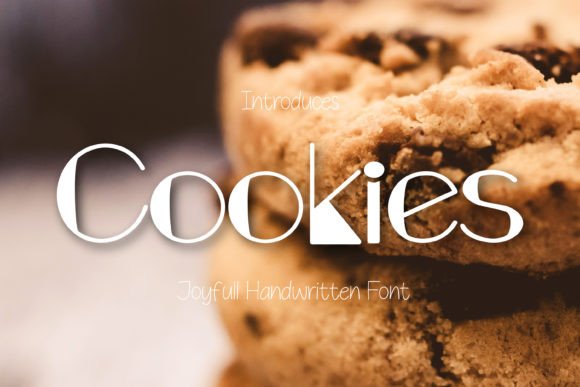
The Sweet Spot: Discovering the Charm of Cookies Font
I still remember the time I was working on a wedding invitation project, and my client asked for a font that was both elegant and quirky. I scoured the internet, tried out dozens of fonts, but nothing seemed to fit the bill. That was until I stumbled upon Cookies Font. Its unique blend of style and whimsy instantly won me over, and I’ve been hooked ever since. In this article, I’ll share my love for Cookies Font, its features, and how to make the most of it in your designs.
What I Love About Cookies Font
- ✨ Unique and stylish sans serif design that stands out from the crowd
- ✅ Elegant and sophisticated, yet playful and quirky
- 🔥 Highly versatile, suitable for a wide range of design projects, from invitations to logos
- 💻 Clean and readable, even at small font sizes
While Cookies Font is an excellent choice for many design projects, there are a few things to keep in mind:
- 🤔 Limited availability of extended language support
- ⚠️ May not be the best choice for body text, as it’s more suited for headlines and titles
- Explore the various OpenType features, such as stylistic alternates and glyphs, to add visual interest to your text
The Story Behind Cookies Font
Cookies Font was designed with the intention of creating a unique and stylish sans serif font that would stand out in a crowded design landscape. Inspired by the elegance of classic fonts and the playfulness of modern design, Cookies Font is the perfect blend of sophistication and whimsy.
Q: What type of projects is Cookies Font best suited for?
A: Cookies Font is highly versatile and can be used for a wide range of design projects, including invitations, cards, flyers, menus, displays, logos, and more.
Q: Is Cookies Font suitable for body text?
A: While Cookies Font is a beautiful font, it’s more suited for headlines and titles. For body text, you may want to choose a font that’s more readable and optimized for longer blocks of text.